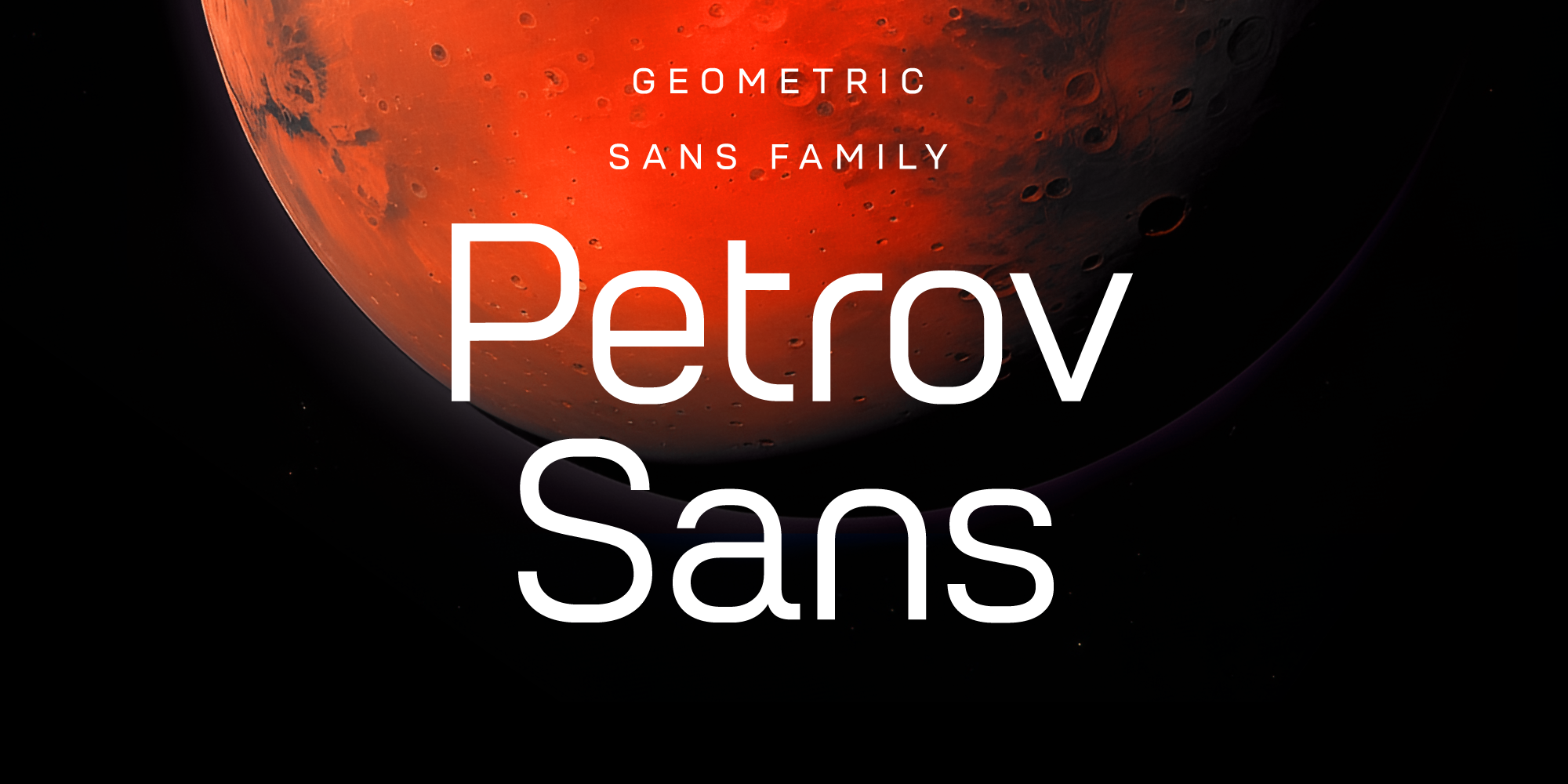
Petrov Sans Font is a versatile and contemporary typeface, perfect for designs that aim to convey clarity, modernism, and a sophisticated, no-nonsense aesthetic. Its clean lines, balanced proportions, and robust construction make it an excellent choice for corporate branding, editorial layouts for digital and print media, user interfaces, and information design. Imagine it providing sleek readability for a tech company's website, adding a professional yet approachable feel to financial reports, or ensuring impeccable clarity for educational materials. This font is also superb for apparel branding for minimalist fashion lines, signage systems, and any project where efficiency, professionalism, and a future-forward visual identity are key. It doesn't just display text; it enhances your message with a sense of innovative precision and effortless style.
What makes Petrov Sans Font so exciting is its remarkable ability to blend geometric purity with a subtle humanistic touch, ensuring both aesthetic appeal and outstanding readability across various applications. It possesses a contemporary charm that feels both robust and airy, making it incredibly versatile for a wide range of uses, from prominent headlines to detailed body text. This unique combination allows designers to create visually compelling content that is highly functional and effortlessly modern. It’s a font that speaks with a clear, confident voice, making it ideal for brands and content creators who want to convey reliability, innovation, and a sophisticated, straightforward aesthetic. Its balanced appeal can make any design feel more cohesive and effortlessly professional.
The Petrov Sans Font family typically offers a comprehensive range of weights and styles to provide extensive design flexibility and allow for nuanced typographic expressions. While the exact variations can differ based on the specific design, you can generally expect to find key members that support diverse layout needs, such as:
• Petrov Sans Thin
• Petrov Sans Light
• Petrov Sans Regular
• Petrov Sans Medium
• Petrov Sans SemiBold
• Petrov Sans Bold
• Petrov Sans ExtraBold
• Petrov Sans Black
• Petrov Sans Italic (for most, if not all, weights)
• Petrov Sans Condensed (if available, for space-saving applications)